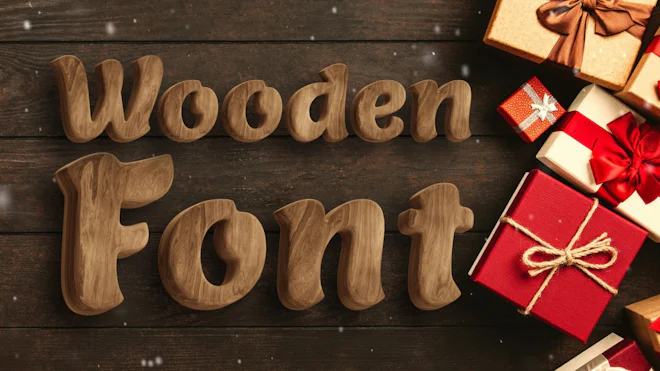
Pack Of 74 3D Wooden Typefaces On Alpha
This stock motion graphics video pack includes 74 clips of 3D wooden upper letters, lower letters, numbers and symbols on a transparent alpha channel.